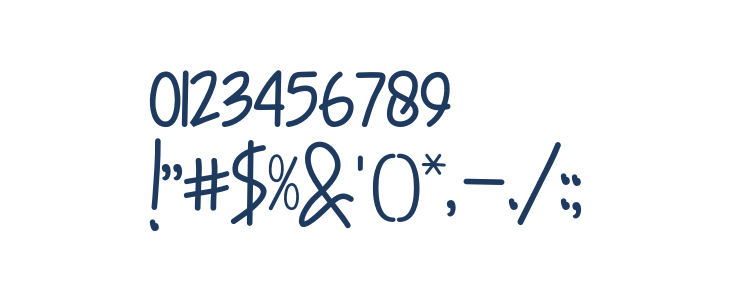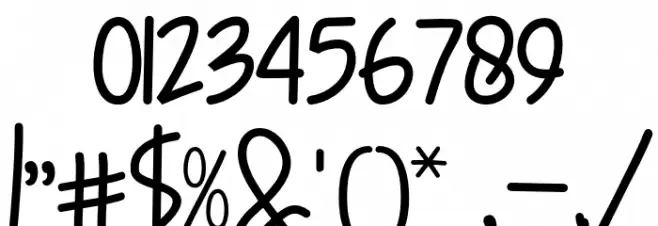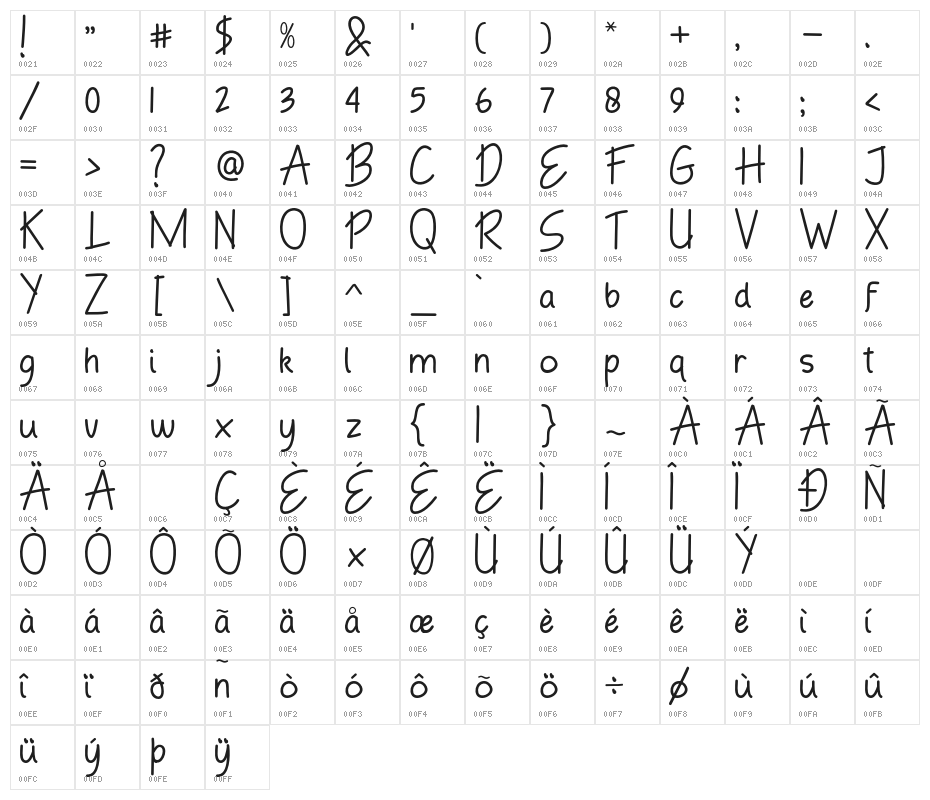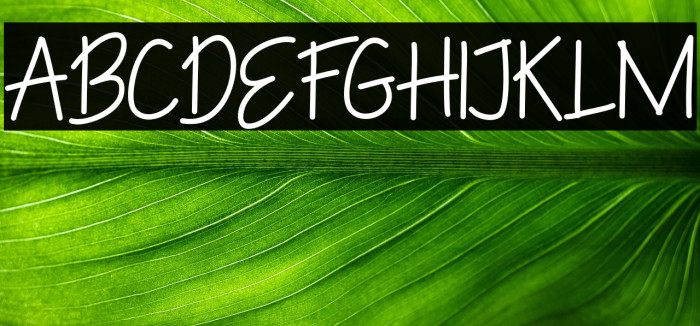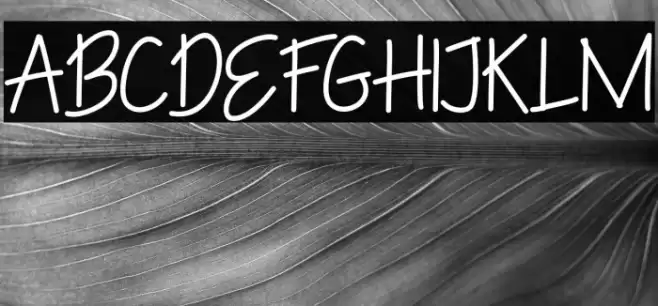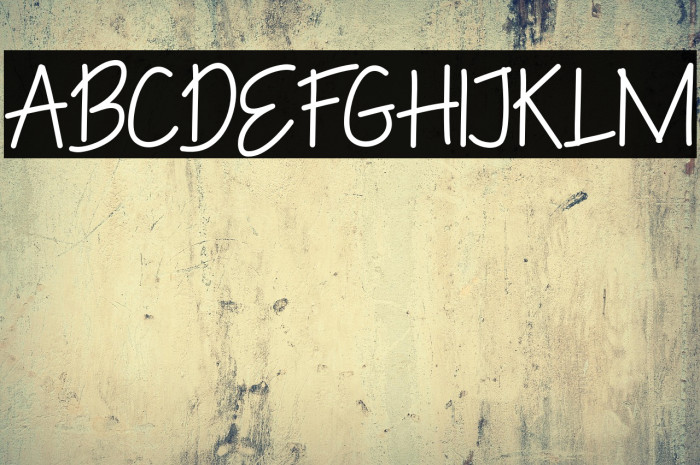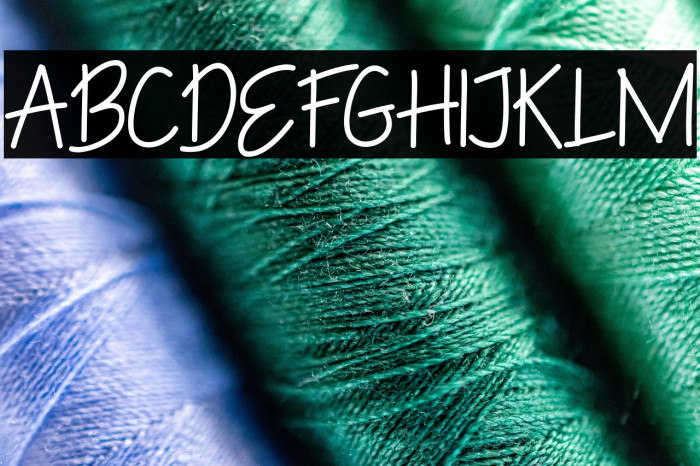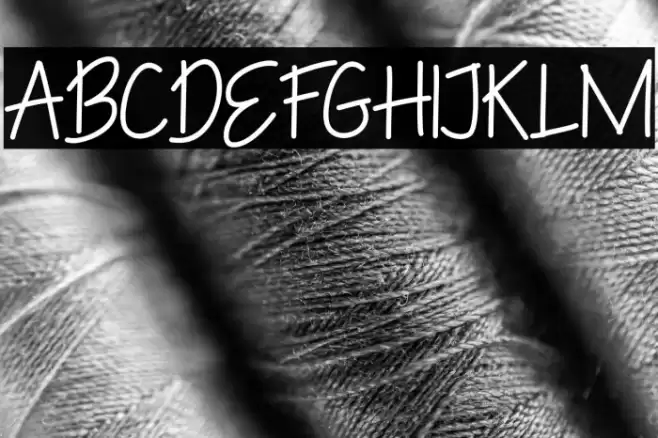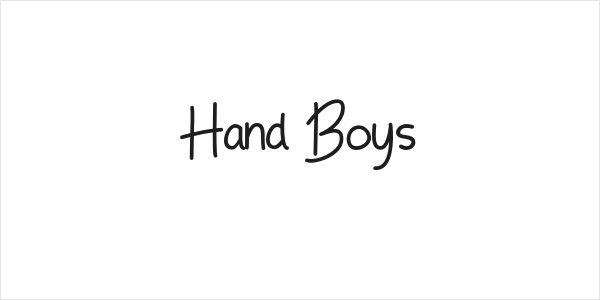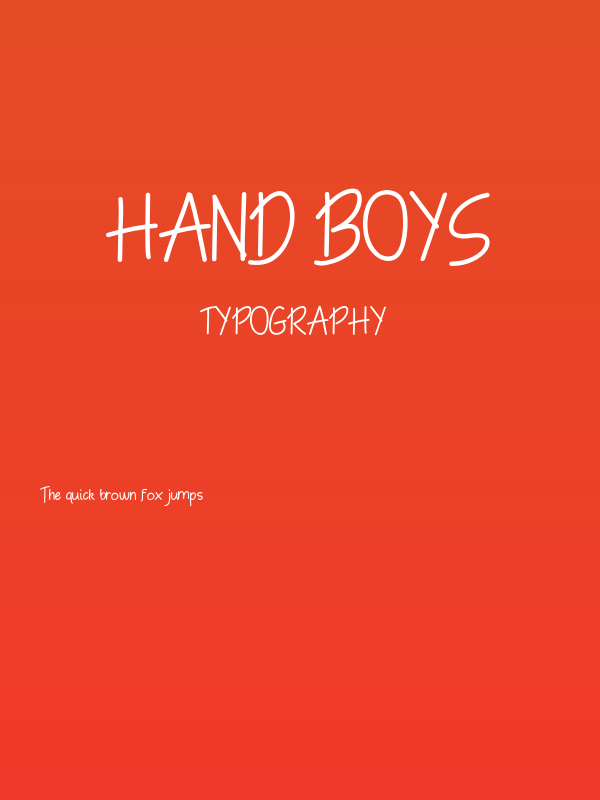
Hand Boys Font
Hand Boys Description
This font features a playful and casual handwritten style, characterized by its smooth, flowing lines and slightly irregular shapes. The uppercase letters are tall and slender, while the lowercase letters are more rounded and compact, creating a harmonious balance. The numerals and special characters maintain the same whimsical quality, making the font versatile for various creative applications. Its informal and friendly appearance makes it ideal for projects that require a personal touch, such as greeting cards, invitations, and children's books.
| Use Case | Headlines, Creative projects, Personal notes |
| Proposed Projects | Ideal for greeting cards, invitations, children's books, and creative projects requiring a personal touch. |